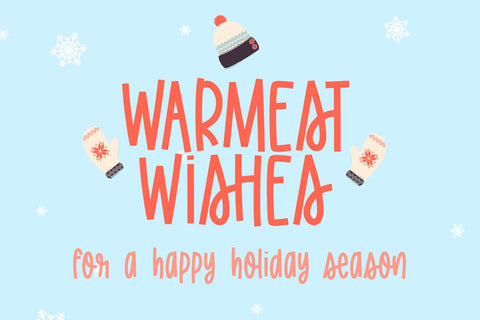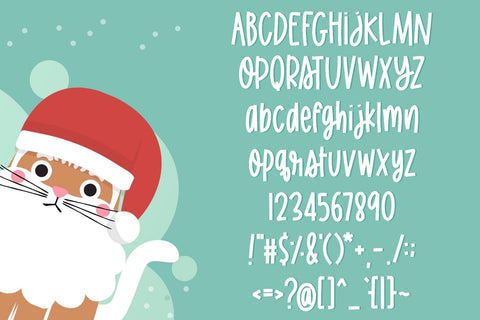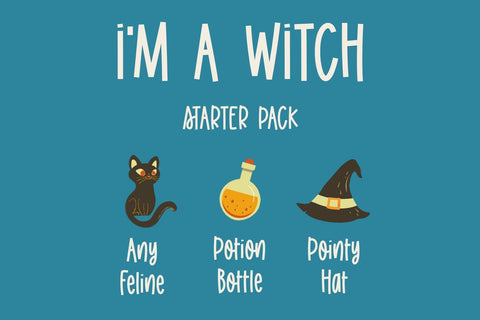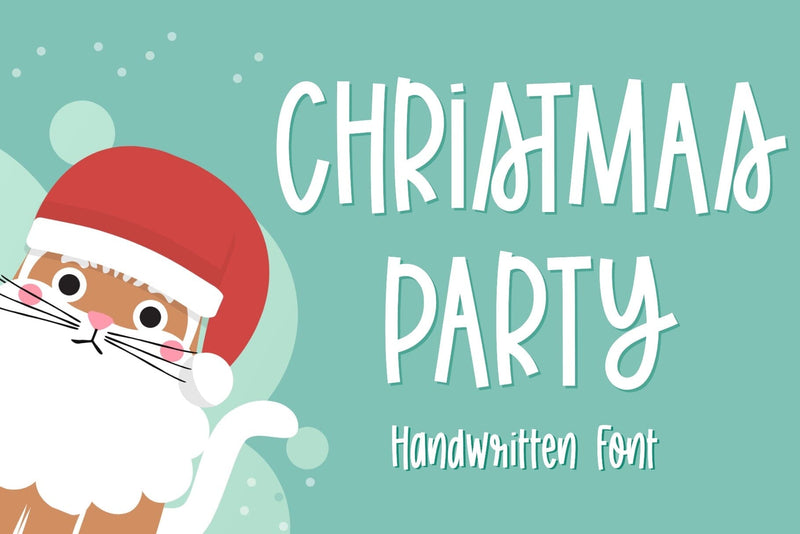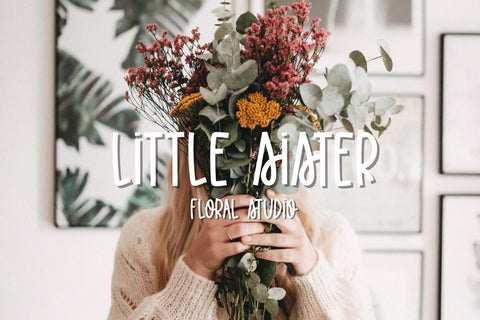
Christmas Party -Handwritten Font
Christmas Party is a fun and friendly handwritten font. You can use this font in various projects - blog posts, logos, branding, digital planner, digital notes, invitations, greeting cards, planners, digital journal, photo albums, study notes, school notes, college notes, decorations and much more. Its authentic look and feel will add a personal and realistic feel to your designs.
The font includes uppercase, lowercase, numbers, punctuations
(English Only)